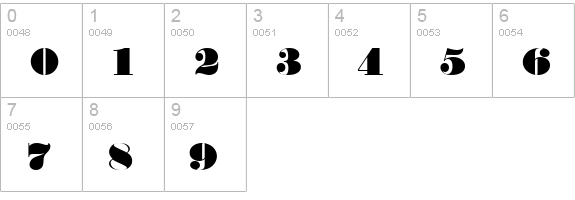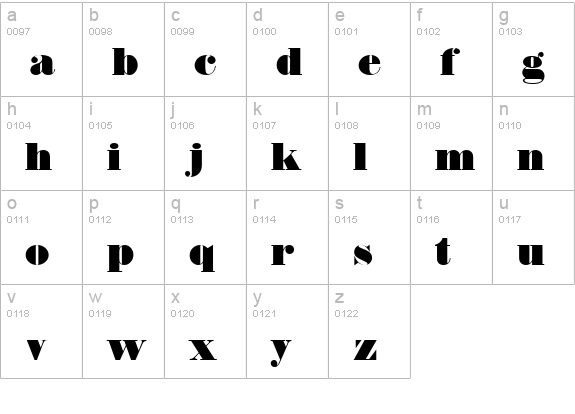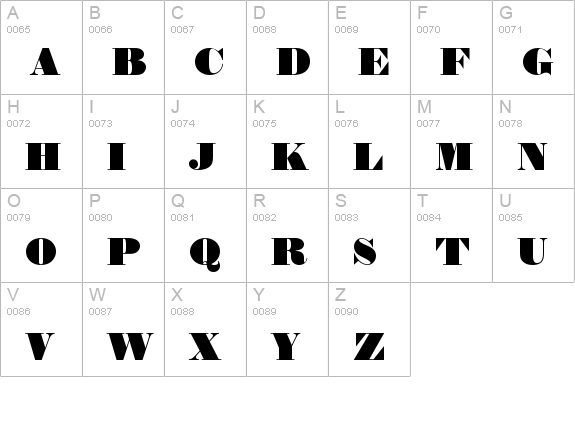
ThorowgoodDReg Font Details
Introducing ThorowgoodDReg, a captivating and versatile font that effortlessly captures attention with its timeless elegance. This meticulously crafted typeface is the perfect blend of classic and contemporary design elements, making it a truly standout choice for any project. ThorowgoodDReg boasts a unique combination of clean lines and graceful curves, resulting in a font that exudes sophistication and refinement. Its well-balanced proportions and harmonious letterforms make for a legible and visually pleasing reading experience, ensuring that your message is effortlessly conveyed to your audience. Not only does ThorowgoodDReg possess an unmatched aesthetic appeal, but it also offers practicality and versatility. Whether it's for editorial design, branding, advertising, or web content, this font effortlessly adapts to various contexts, effortlessly complementing any style or theme. Best of all, ThorowgoodDReg is available to download for free at FontsMarket.com. This means that you can bring this stunning font to life in your projects without any financial burden. Simply visit FontsMarket.com and unlock the power of ThorowgoodDReg, adding a touch of timeless elegance to your designs. In conclusion, ThorowgoodDReg is a font that seamlessly combines timeless elegance with contemporary design elements. Its captivating aesthetic, practicality, and versatility make it an excellent choice for any creative project. And with the added bonus of being freely available at FontsMarket.com, there's no reason not to explore the possibilities that ThorowgoodDReg has to offer.